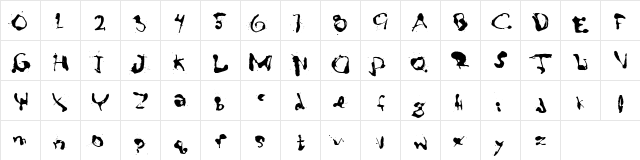
Slawterhouse Regular
Design Context for Slawterhouse Typeface
Slawterhouse is a composed and adaptable typeface that performs quietly and consistently across a wide range of design contexts.